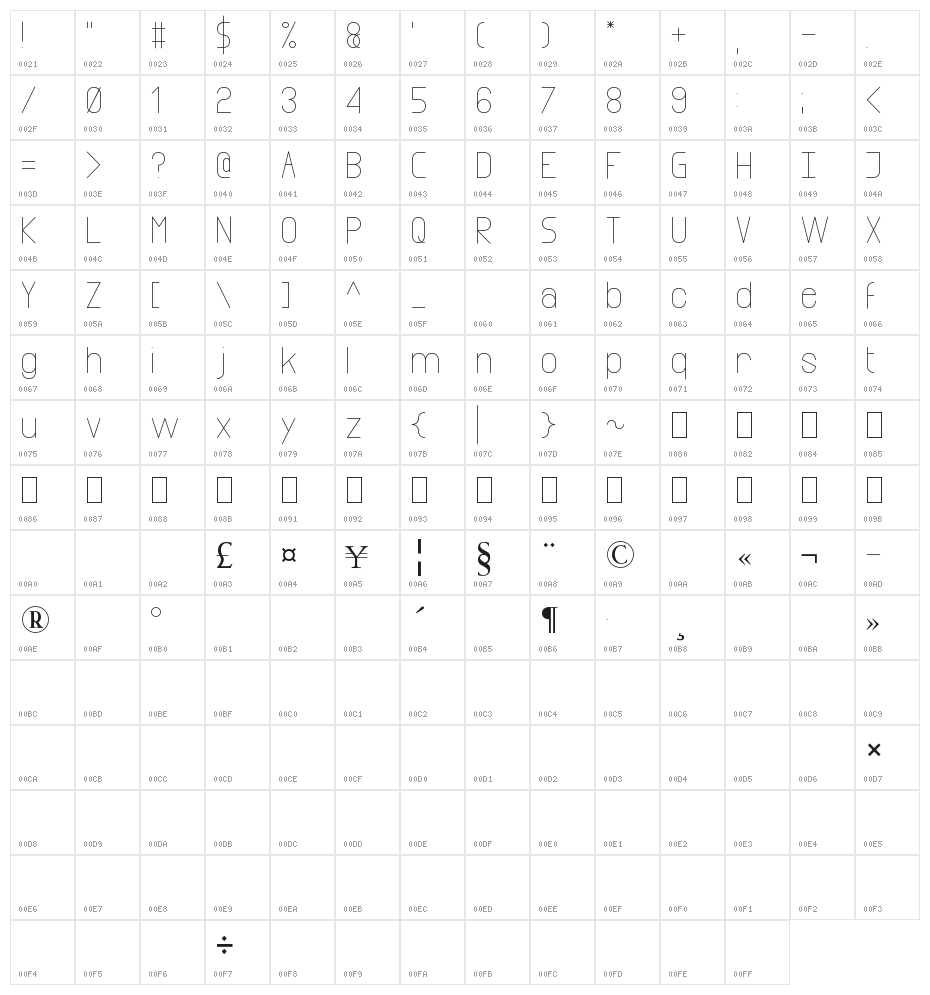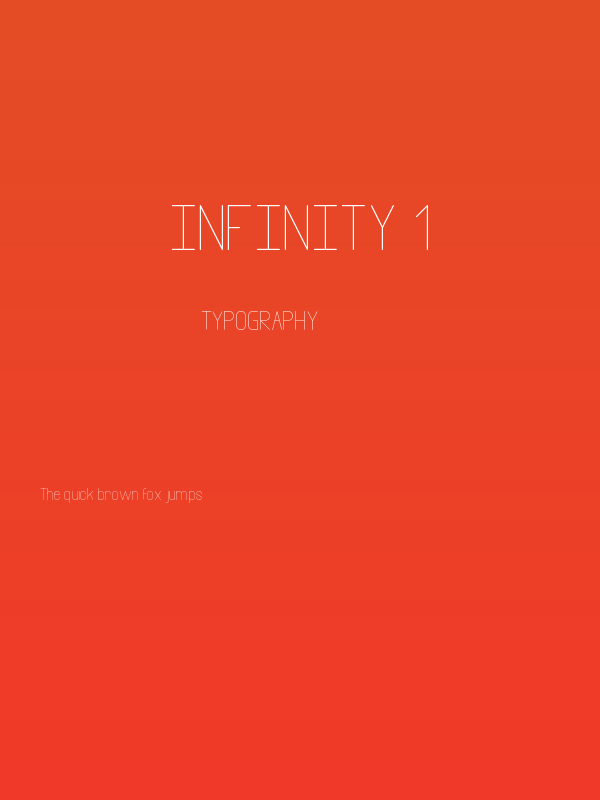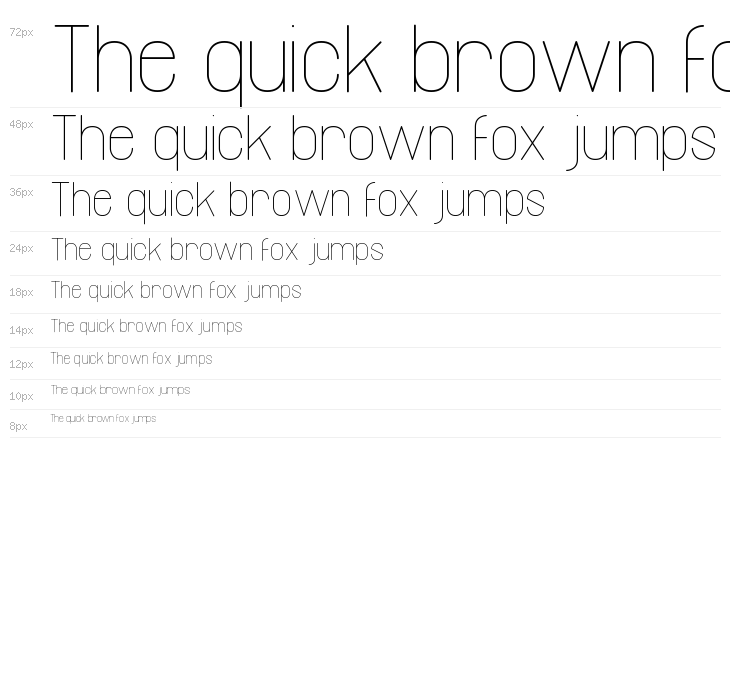
Infinity 1 Font
Infinity 1 Description
This font features a sleek, geometric design with clean lines and a modern aesthetic. The characters are constructed with a consistent stroke width, giving it a uniform appearance. The uppercase letters are tall and narrow, while the lowercase letters maintain a similar width, creating a harmonious balance. The numerals are distinct and easy to read, complementing the overall style. Special characters are designed with the same minimalist approach, ensuring they blend seamlessly with the rest of the font. This typeface is ideal for projects that require a contemporary and sophisticated look.
| Use Case | Headlines, Logos, Digital Interfaces |
| Proposed Projects | Ideal for branding, digital interfaces, modern advertising, and minimalist design projects. |